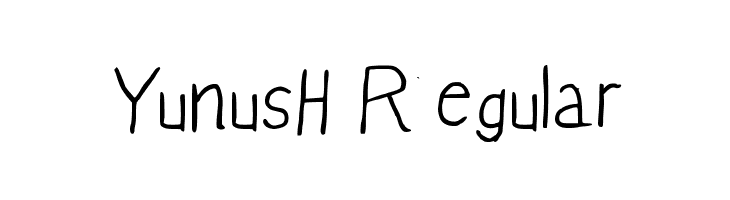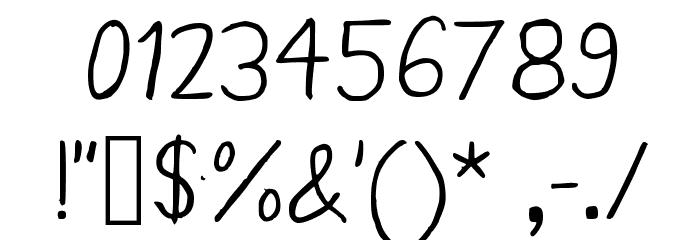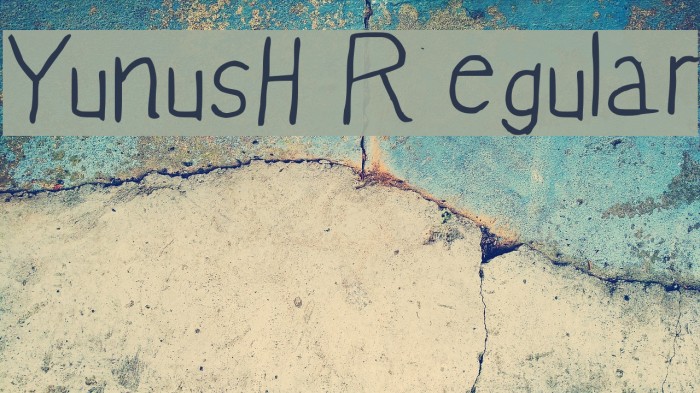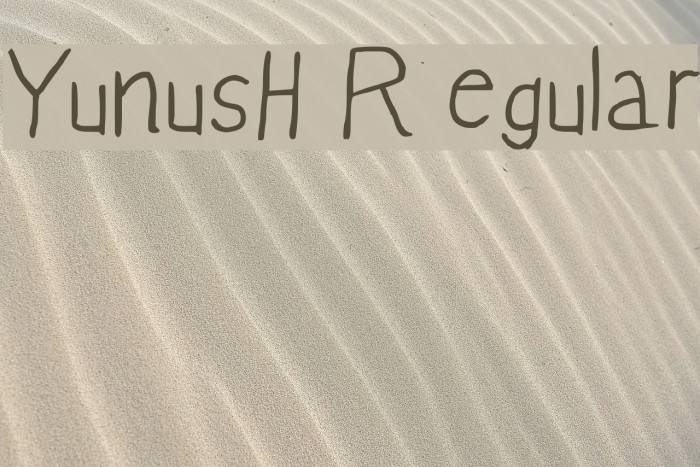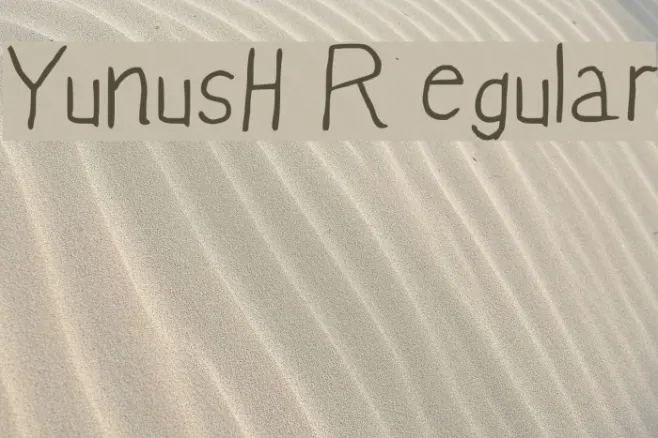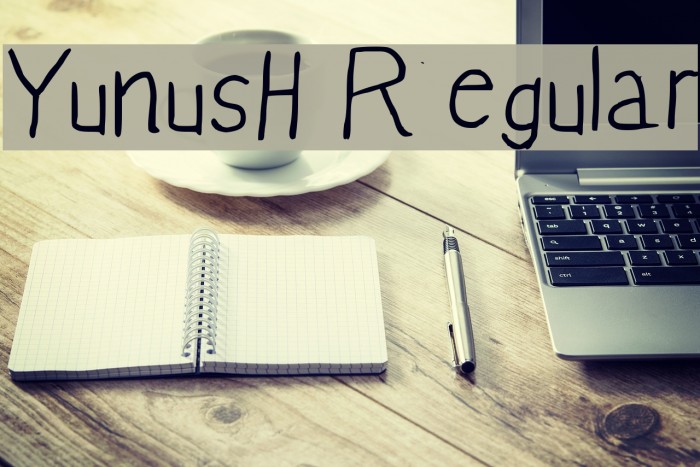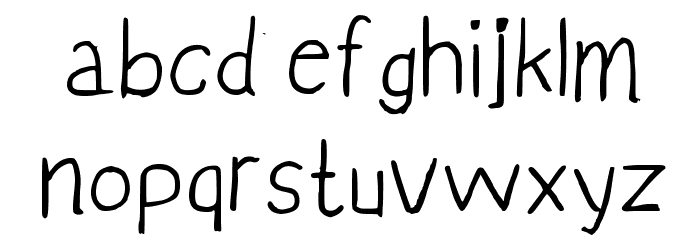
YunusH Regular Font
YunusH Regular Description
This font features a handwritten style with a casual and friendly appearance. The letters are slightly irregular, giving it a personal touch that mimics natural handwriting. The strokes are consistent in thickness, providing a uniform look across all characters. Uppercase letters are slightly taller than lowercase, maintaining a clear distinction between the two. Numbers and special characters are designed to match the overall style, ensuring coherence throughout. This font is versatile, suitable for projects that require a personal or informal tone.
| Overall Style | Casual |
| Use Case | Headlines, Informal text, Creative projects |
| Proposed Projects | Ideal for greeting cards, personal letters, informal invitations, and creative projects that benefit from a handwritten aesthetic. |